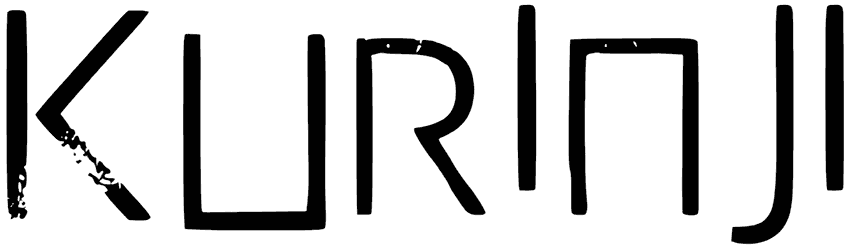
Kurinji Font
Kurinji is an all-caps futuristic font that is designed with a unique style and lets you add a fresh breath to all of your creative ideas, including social media posts, product packaging, flyers, stickers, or street posters.